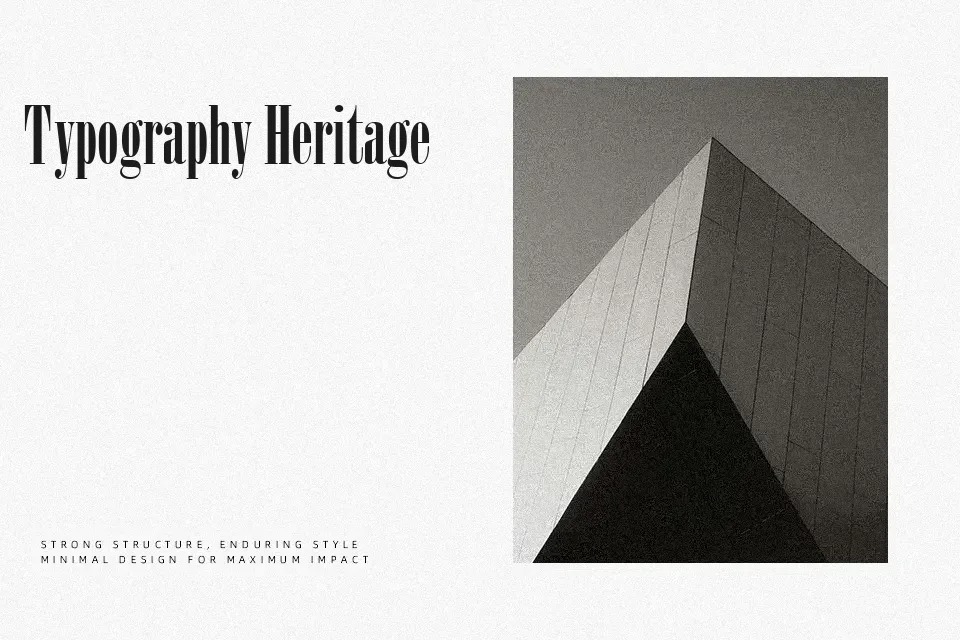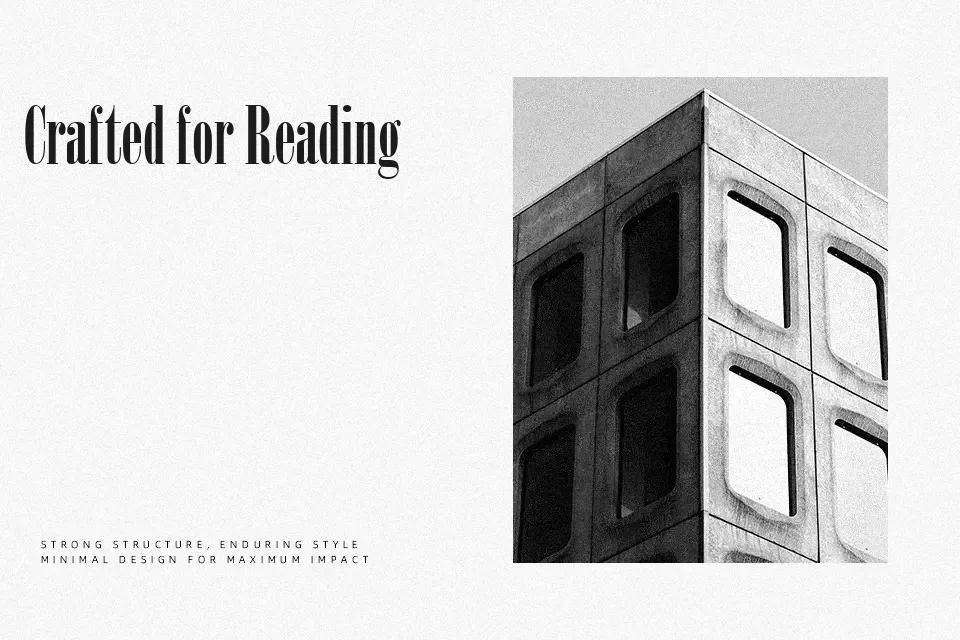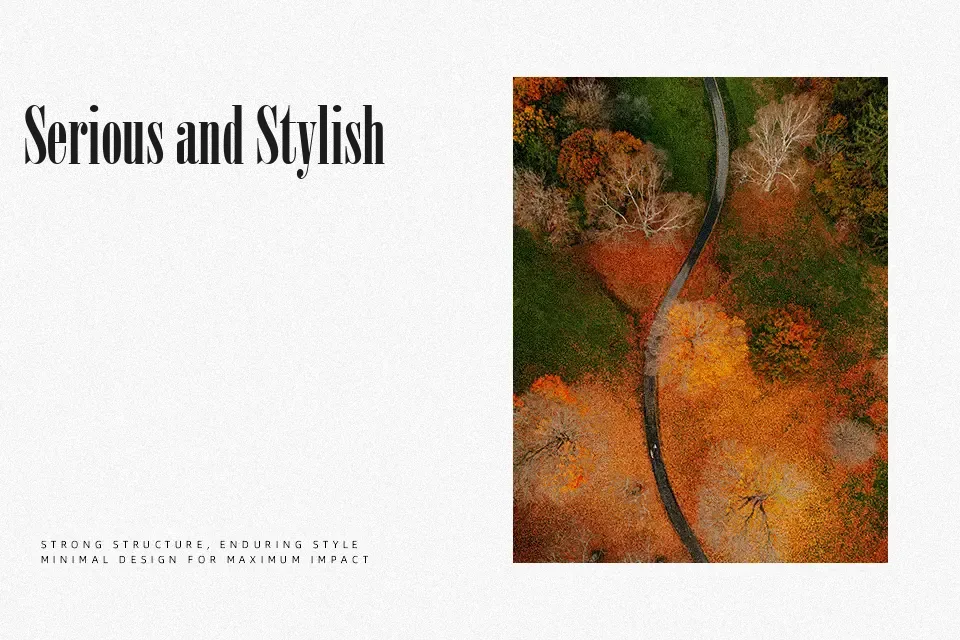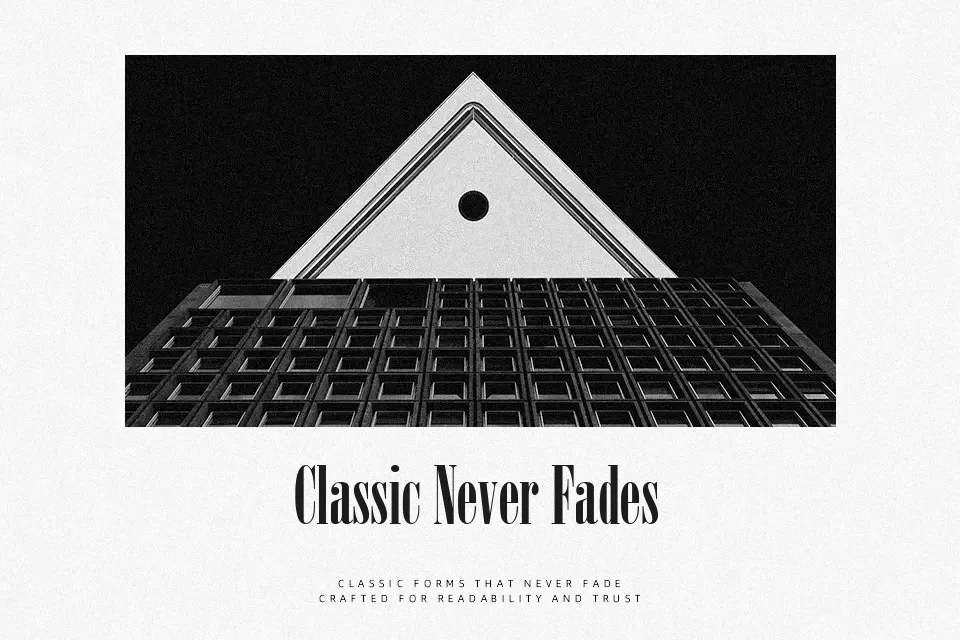
Nirvana Font
Nirvana Font is a powerful, condensed serif typeface that draws inspiration from classic high-contrast designs like Poster Bodoni. It features dramatic variations between heavy vertical stems and delicate, razor-thin horizontal strokes, creating an eye-catching rhythmic texture that commands immediate attention. The sharp serifs and tight letter spacing give it a refined yet aggressive vintage look.
This typeface performs exceptionally well on large formats such as music event posters, retro clothing typography, and striking editorial magazine headers. However, it is not suitable for lengthy body copy or small UI text elements, because the extreme stroke contrast severely reduces legibility at smaller scales. Compared to standard serif options, it feels significantly more dramatic.
– bold editorial headlines
– retro band merchandise
– striking music posters
– lengthy body copy
– small interface elements
– formal corporate documents
Perfect for fashion, headline, and logo, with a bold and condensed style.